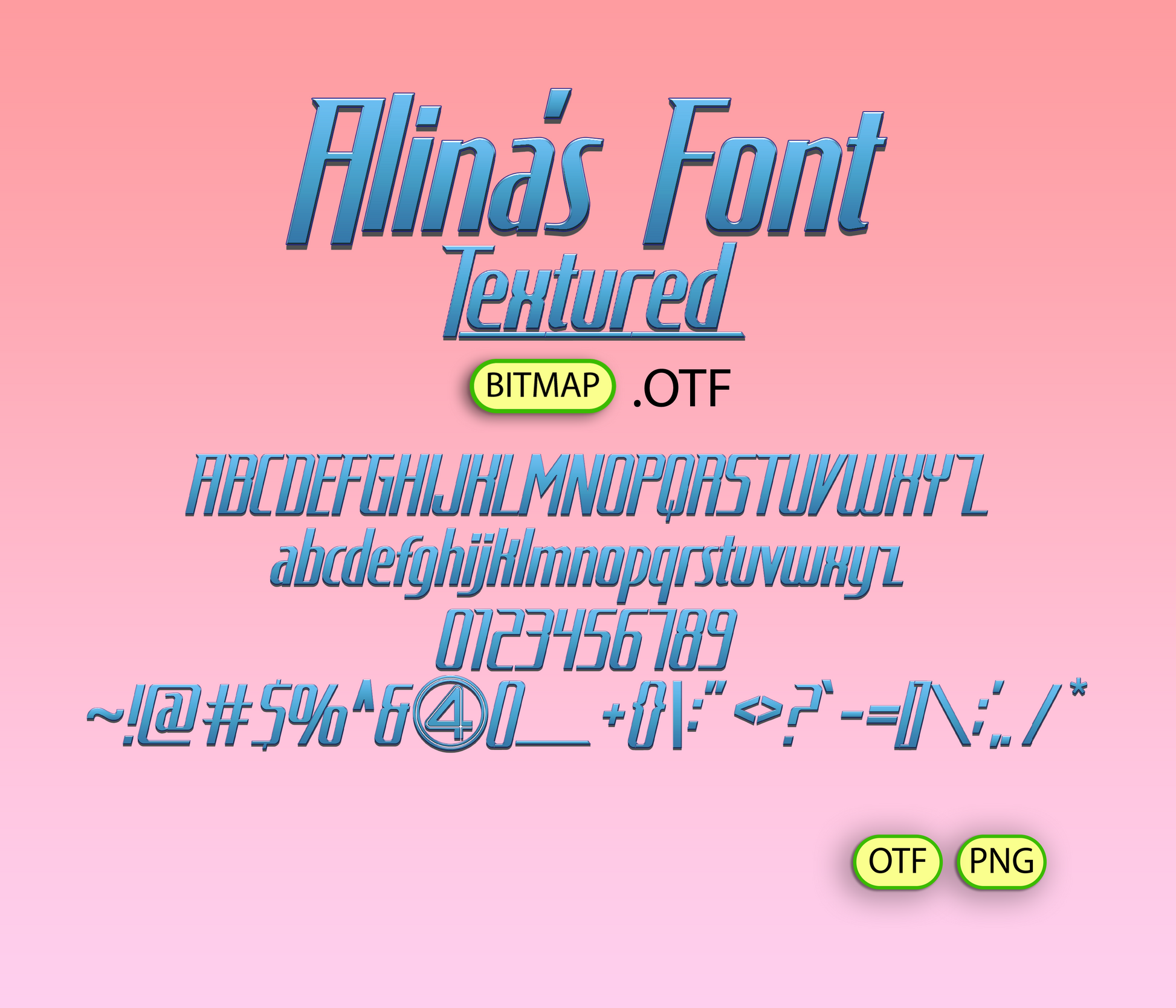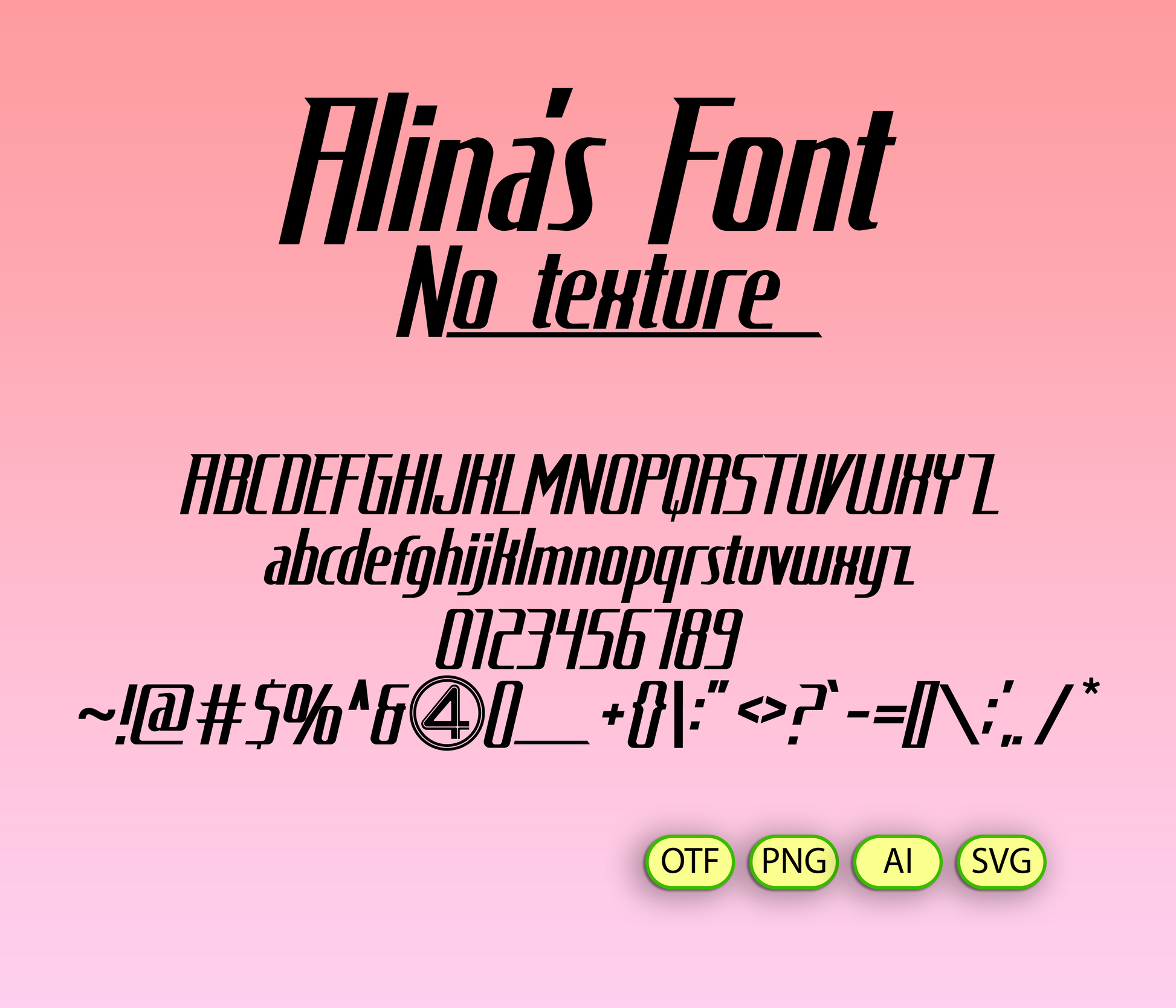
Cosmic Quartet Adventure Font Textured
Step into the extraordinary world of cosmic exploration with our Cosmic Quartet Adventure font, capturing the essence of a legendary superhero family team. Perfect for fans, comic creators, event organizers, and designers, this font brings the dynamic, science-powered spirit of four iconic heroes to your projects. Create event invitations, themed merchandise, or digital content with the high-stakes energy of this remarkable team's adventures.
Our Cosmic Quartet font features bold, scientific lines and powerful characters reflecting the extraordinary nature of these cosmic heroes. Ideal for:
1. Event Promotions: Striking invites, posters, banners for conventions, movie nights, themed parties.
2. Merchandise Design: T-shirts, posters, accessories capturing the essence of cosmic exploration.
3. Digital Media: Enhance websites, blogs, social media with dynamic headers and graphics.
4. Comic Book Content: Authentic flair for comic books, graphic novels, fan art.
5. Personal Projects: Adventure and discovery for scrapbooking, DIY crafts, home decor inspired by the fantastic four.
Our Cosmic Quartet font includes textured and non-textured variants, ensuring compatibility with all software, including Canva. This feature allows easy incorporation into designs for users of all skill levels.
Many seek an online font generator to mimic the look of the Cosmic Quartet Font. Steer clear! No generator can match the quality of our font, which comes in two versions: a textured colored font and a simple version, perfect for cutting machines.
Our font pays tribute to the legendary team, empowering your designs with its scientific and heroic spirit. Whether crafting promotional materials, designing merchandise, or adding a dynamic touch to personal projects, this font communicates the bold essence of these heroes. Ready to inject cosmic adventure into your creations? This font is your key to exciting, impactful design.